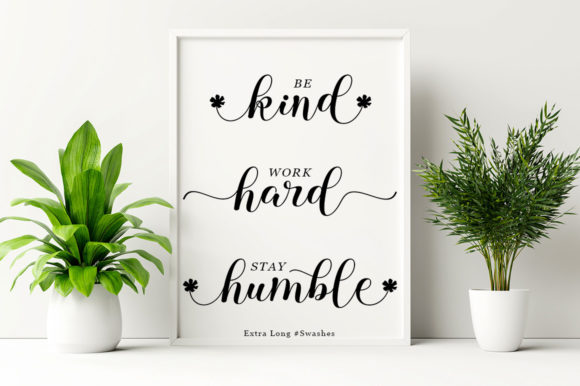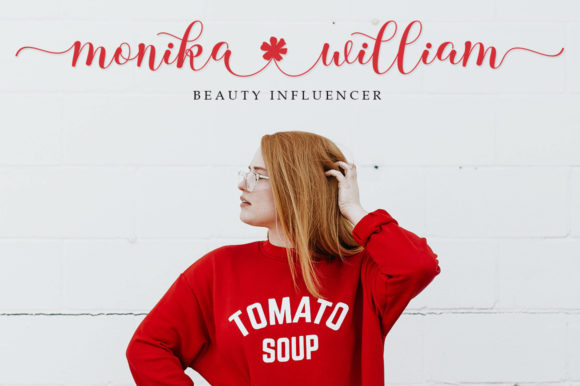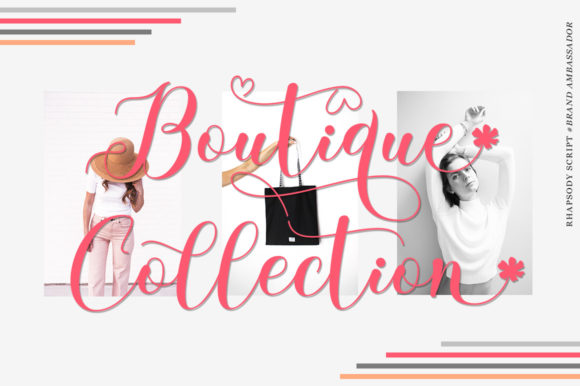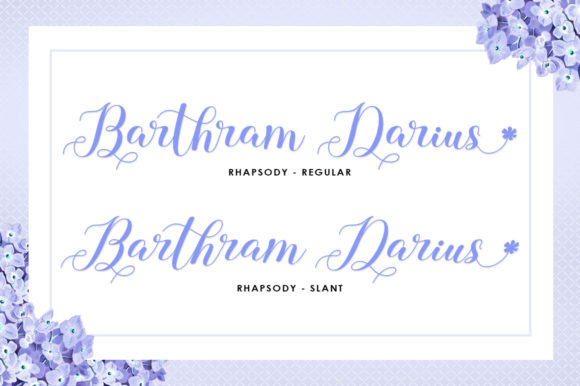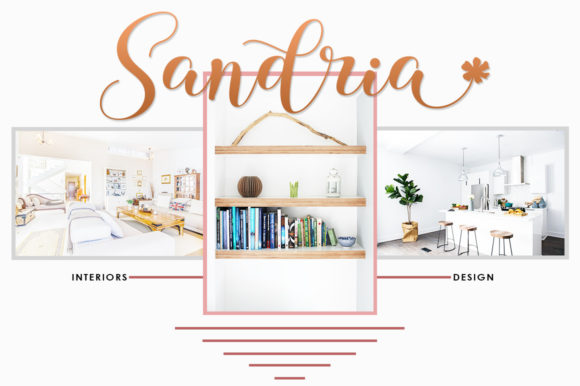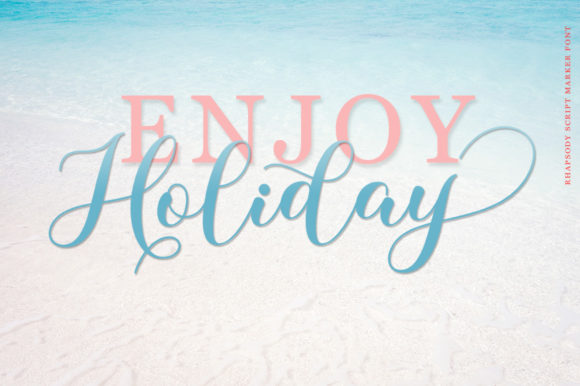
Introduction to Rhapsody Font
Rhapsody is an unique handwritten font.
Whether youโre using it for crafting, digital designing, presentations, or greeting card making, itโs perfect Fall in love with its incredibly versatile style and use it to create spectacular designs.
Key Features of Rhapsody Font
Why Choose Rhapsody Font?
Rhapsody Font offers exceptional quality and versatility, making it a valuable addition to your design toolkit. Whether you’re creating for personal projects or commercial use, Rhapsody Font delivers professional results.